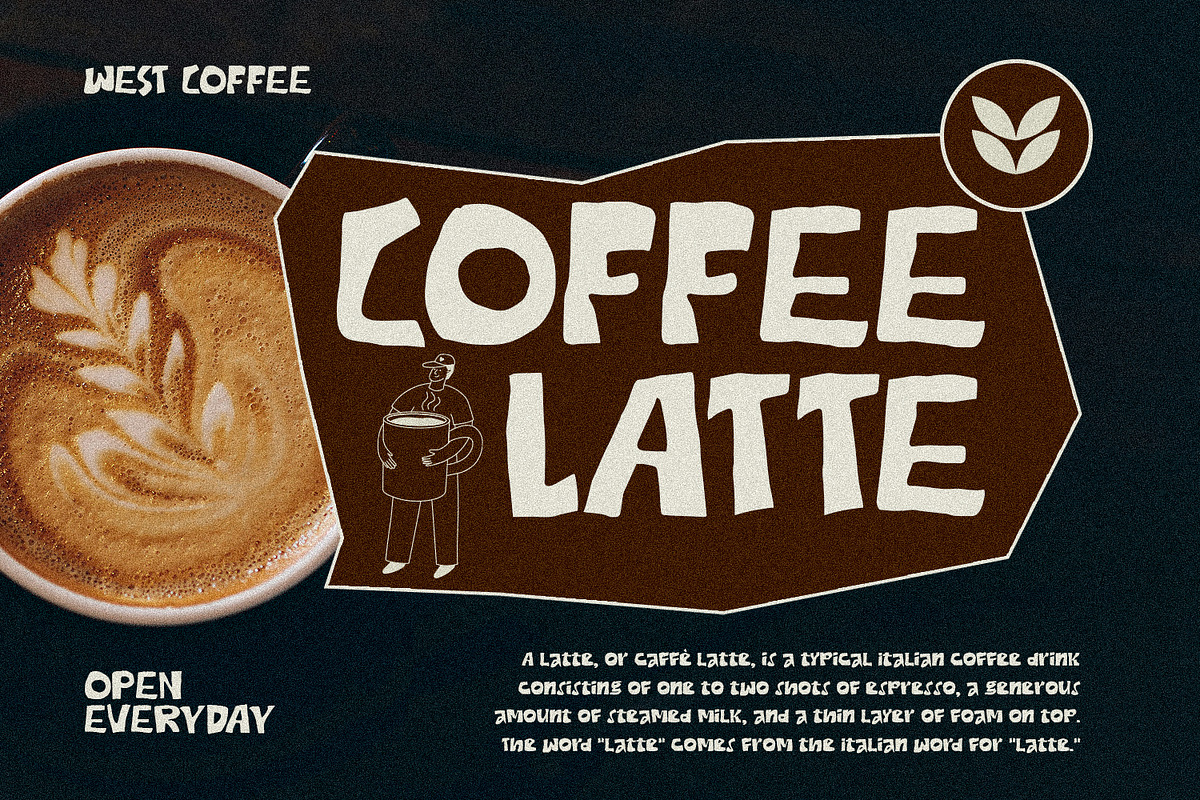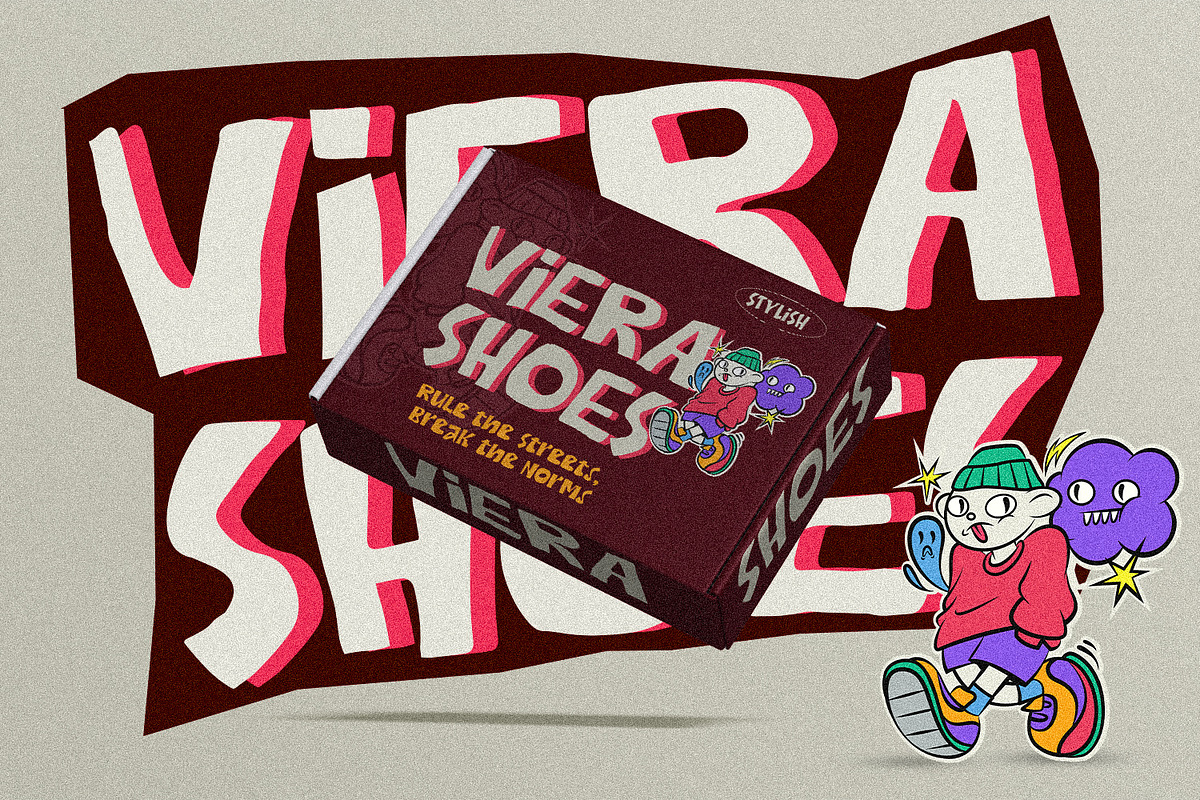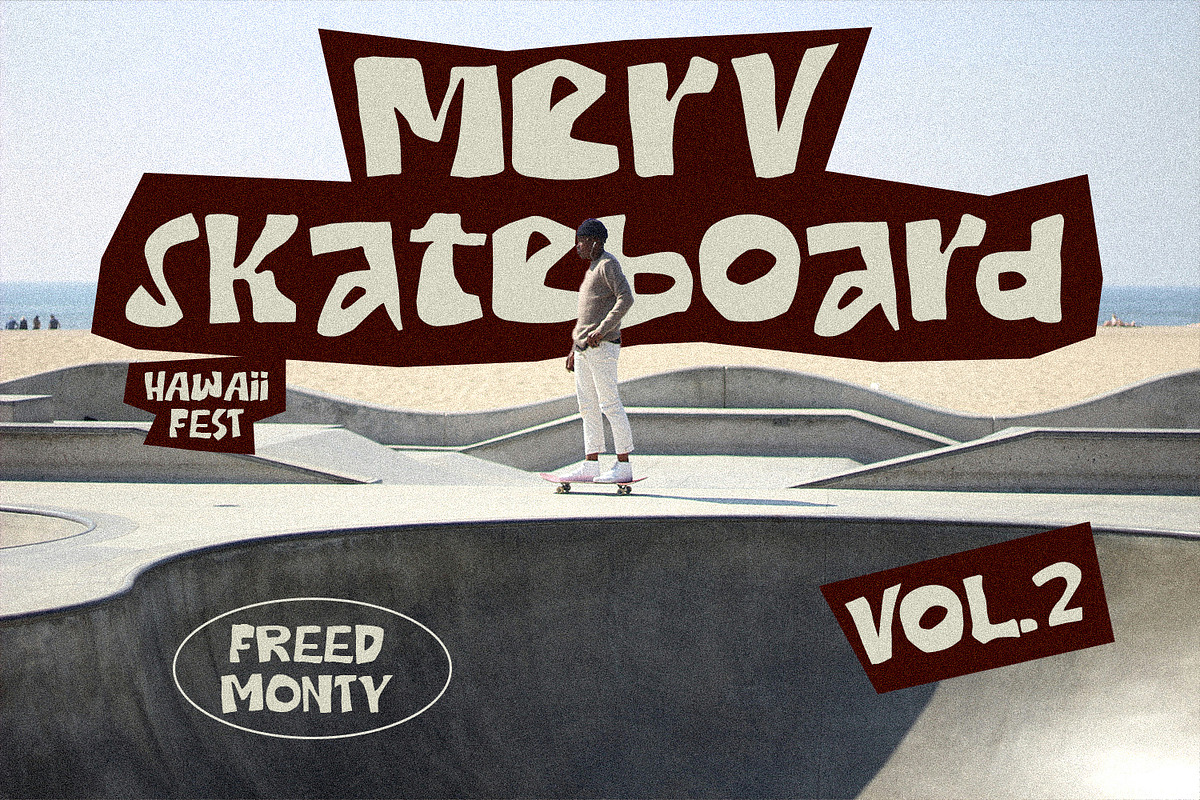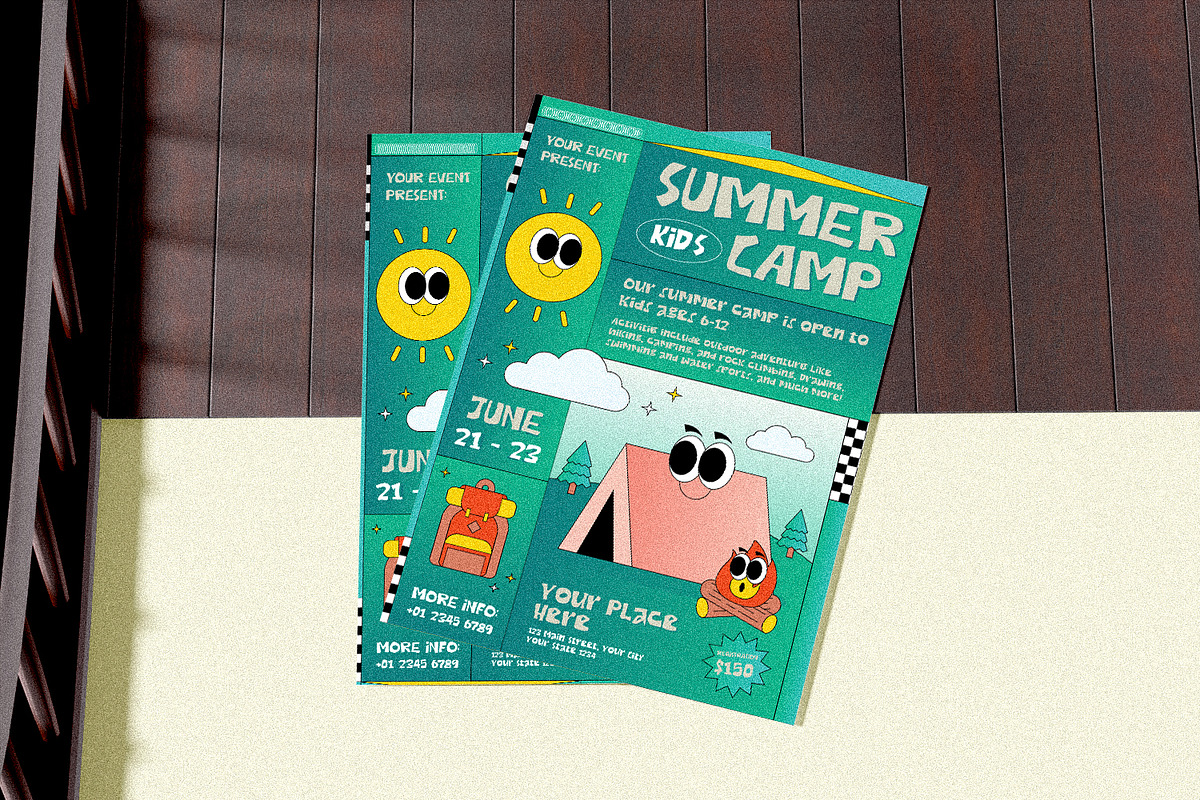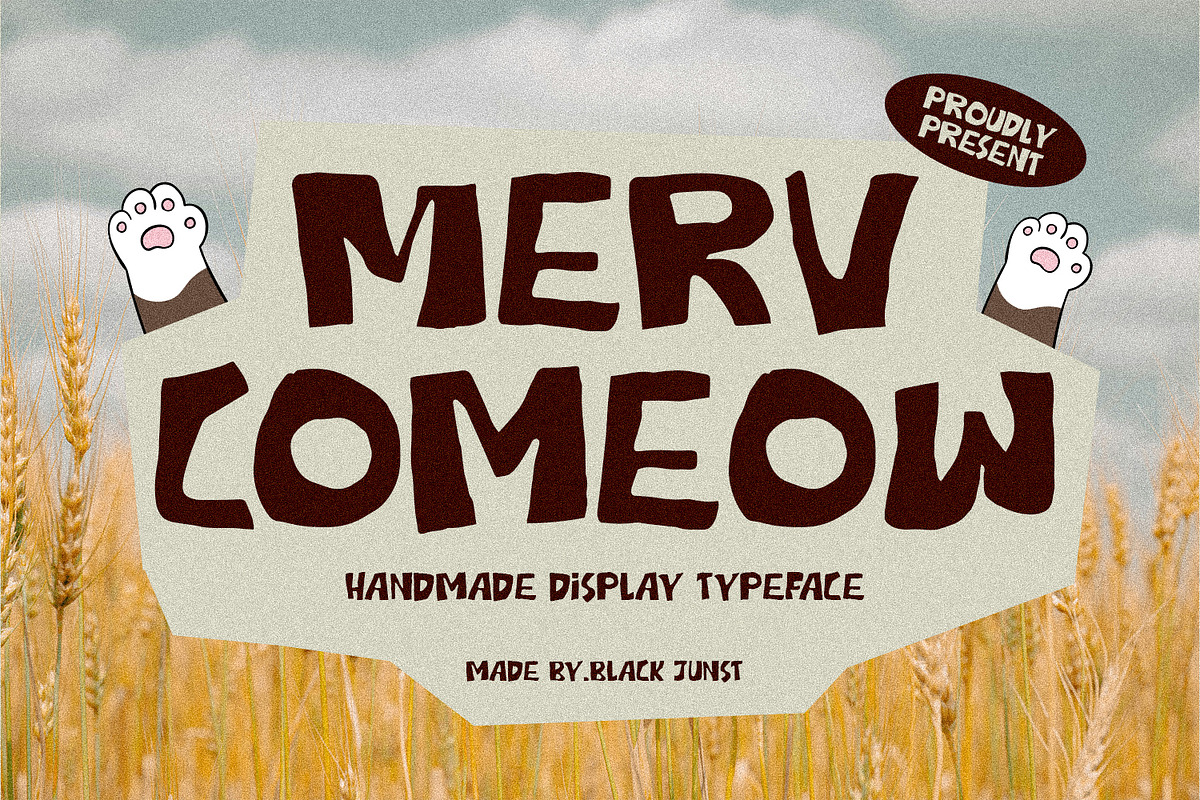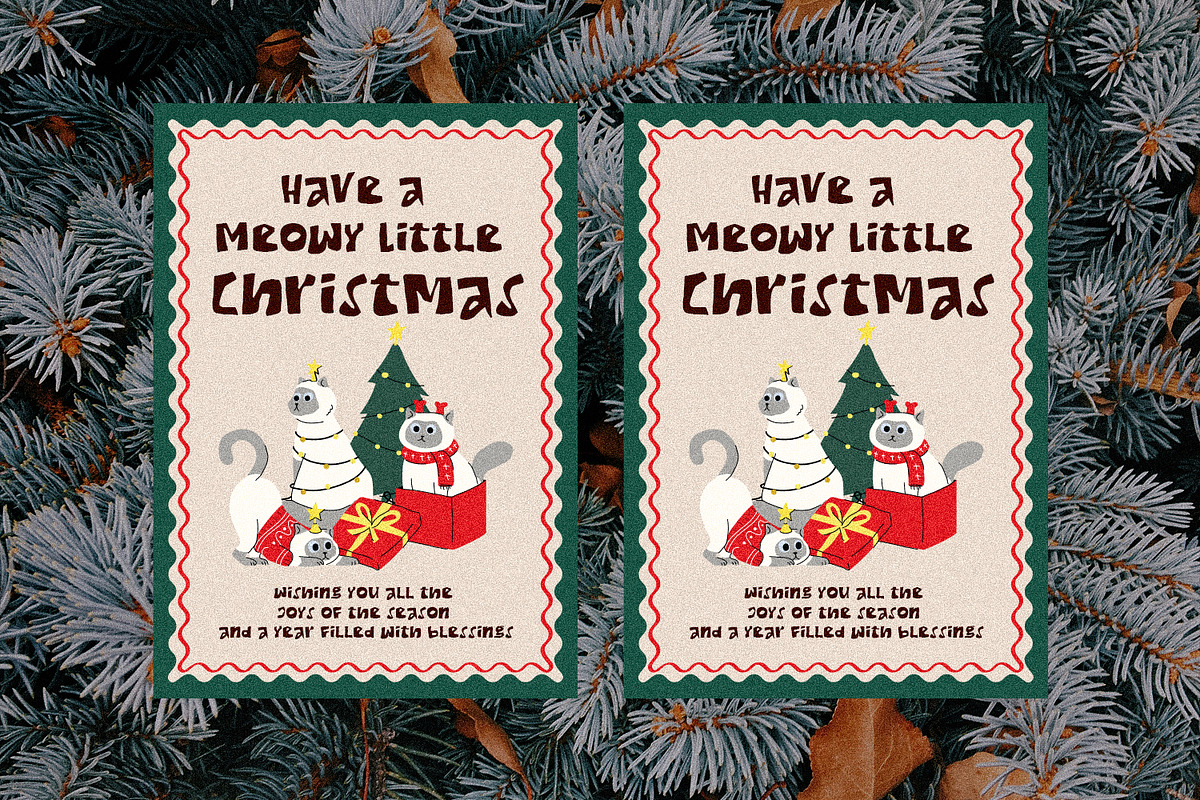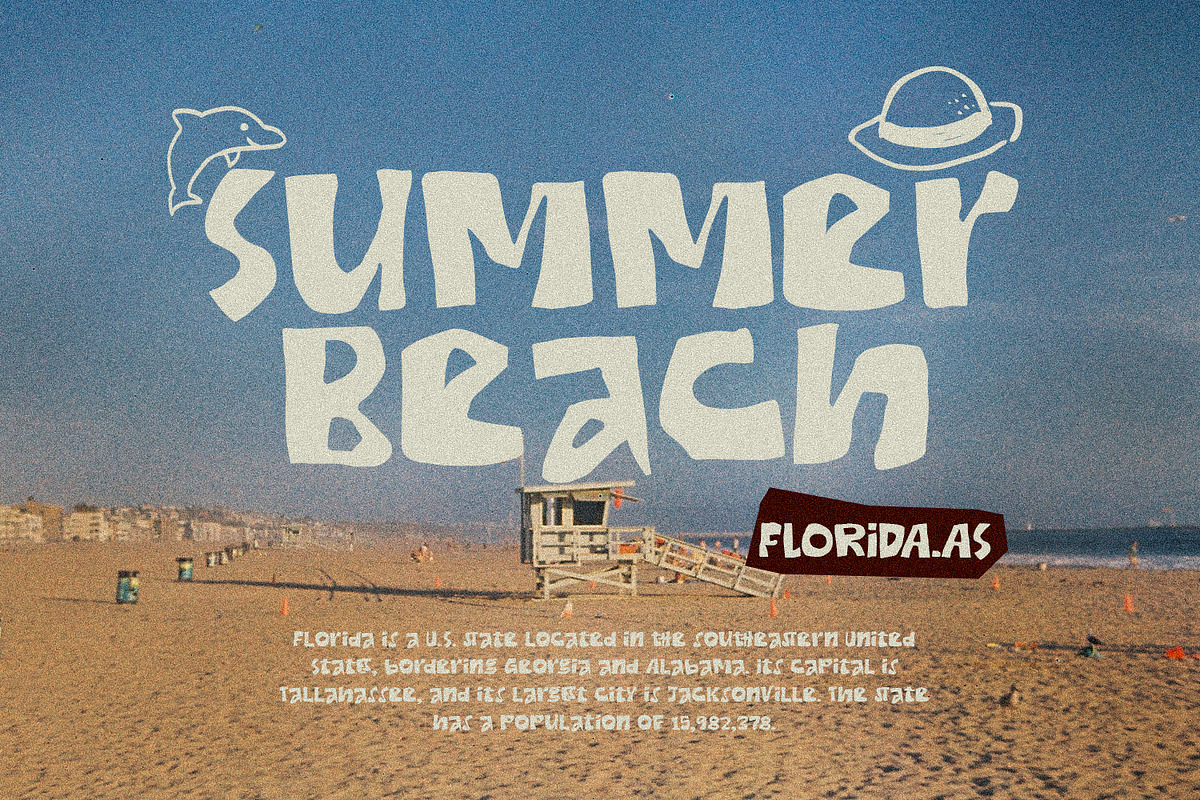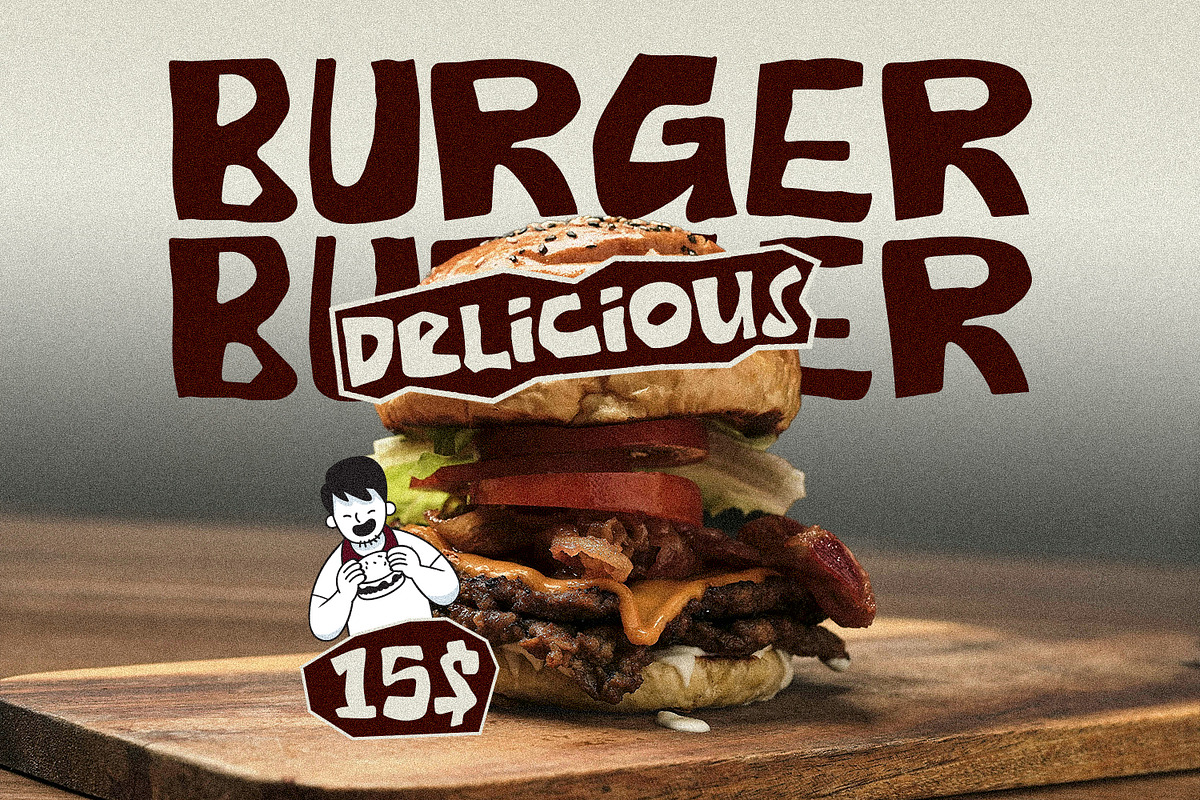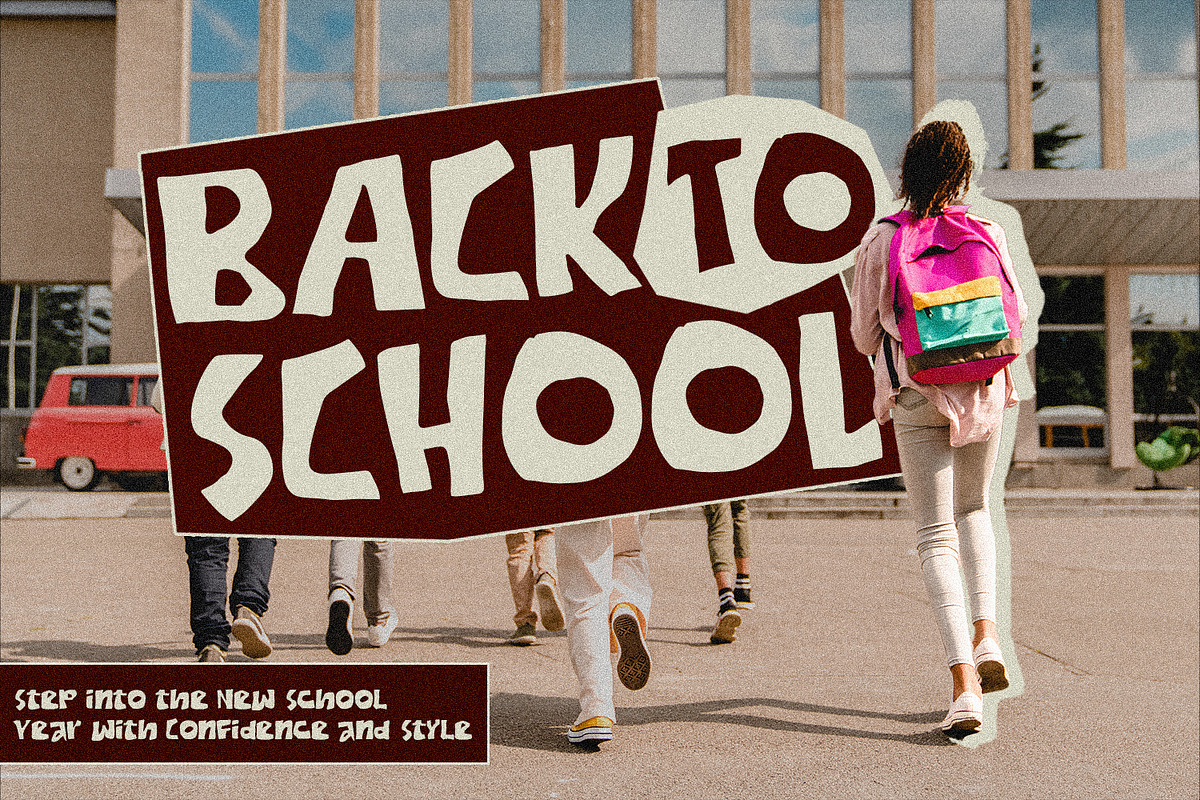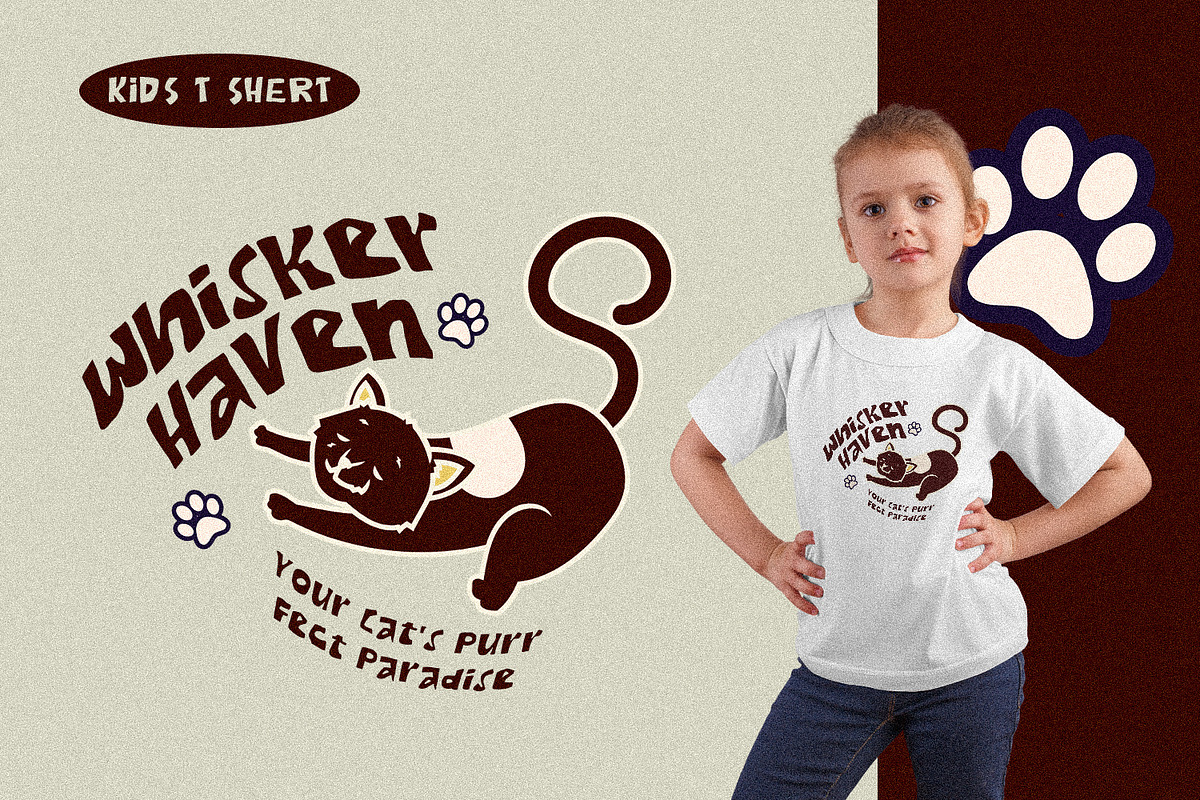
Merv Comeow – Handmade Display
Merv Comeow is a playful handmade display font with bold, chunky letterforms and an organic hand-drawn personality. Its imperfect shapes and expressive details create a warm, fun, and authentic visual style that instantly grabs attention.
Designed for designers who want a friendly and distinctive typography style, Merv Comeow works beautifully for logos, branding, packaging, posters, apparel, stickers, labels, social media graphics, children's designs, food branding, and creative advertising.
Its handcrafted appearance gives every word a natural and approachable character, making it a great choice for projects that need personality rather than a perfectly geometric look.
Perfect for: • Logo & Branding • Product Packaging • Food & Beverage Branding • Posters & Headlines • Apparel & T-Shirt Design • Stickers & Labels • Social Media Graphics • Children's Products • Editorial Headlines • Creative Advertising
Merv Comeow is a versatile handmade display typeface for designers looking to add a bold, playful, organic, and memorable touch to their projects.